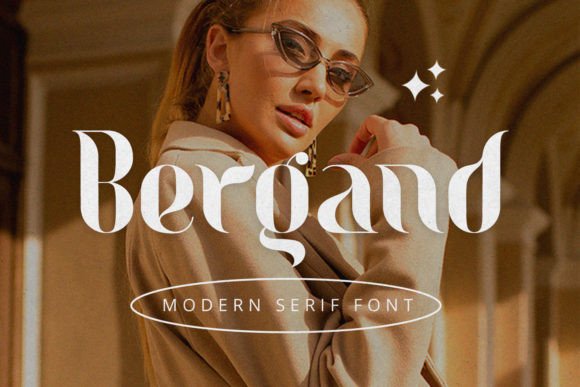
**Introducing Bergand Font: The Epitome of Fashionable Typography**
Step into a world of elegance and sophistication with Bergand Font, the enchanting serif typeface that will captivate your audience. Crafted by the esteemed alpapranastudio, this modern marvel boasts a timeless appeal that seamlessly complements a wide array of designs.
**Unleash Your Inner Fashionista**
With its exquisite curves and graceful lines, Bergand Font is the perfect choice for fashion-forward designers. Its inherent beauty shines through in every letterform, elevating your projects with a touch of sophistication and allure. Whether you're crafting stunning wedding invitations, heartfelt thank you cards, or captivating logos, Bergand Font will effortlessly infuse your designs with a sense of luxury and refinement.
**A Versatile Font for All Occasions**
Beyond the realm of fashion, Bergand Font's versatility knows no bounds. Its classic serif style adapts effortlessly to a myriad of projects, including greeting cards, brochures, posters, and even web designs. It's the perfect choice for those seeking a font that exudes both elegance and versatility.
**Indulge in Typographic Bliss**
Each letterform in Bergand Font is meticulously designed to evoke a sense of harmony and grace. Its flowing curves and subtle details create a visual masterpiece that will leave a lasting impression. Whether you're a seasoned designer or just starting your typographic journey, Bergand Font will inspire you to create designs that turn heads.
**Elevate Your Designs to New Heights**
Experience the transformative power of Bergand Font and watch your designs soar to new heights. Its timeless beauty and versatility will captivate your audience, leaving an unforgettable mark. Embrace the exquisite craftsmanship of alpapranastudio and let Bergand Font ignite your creativity.